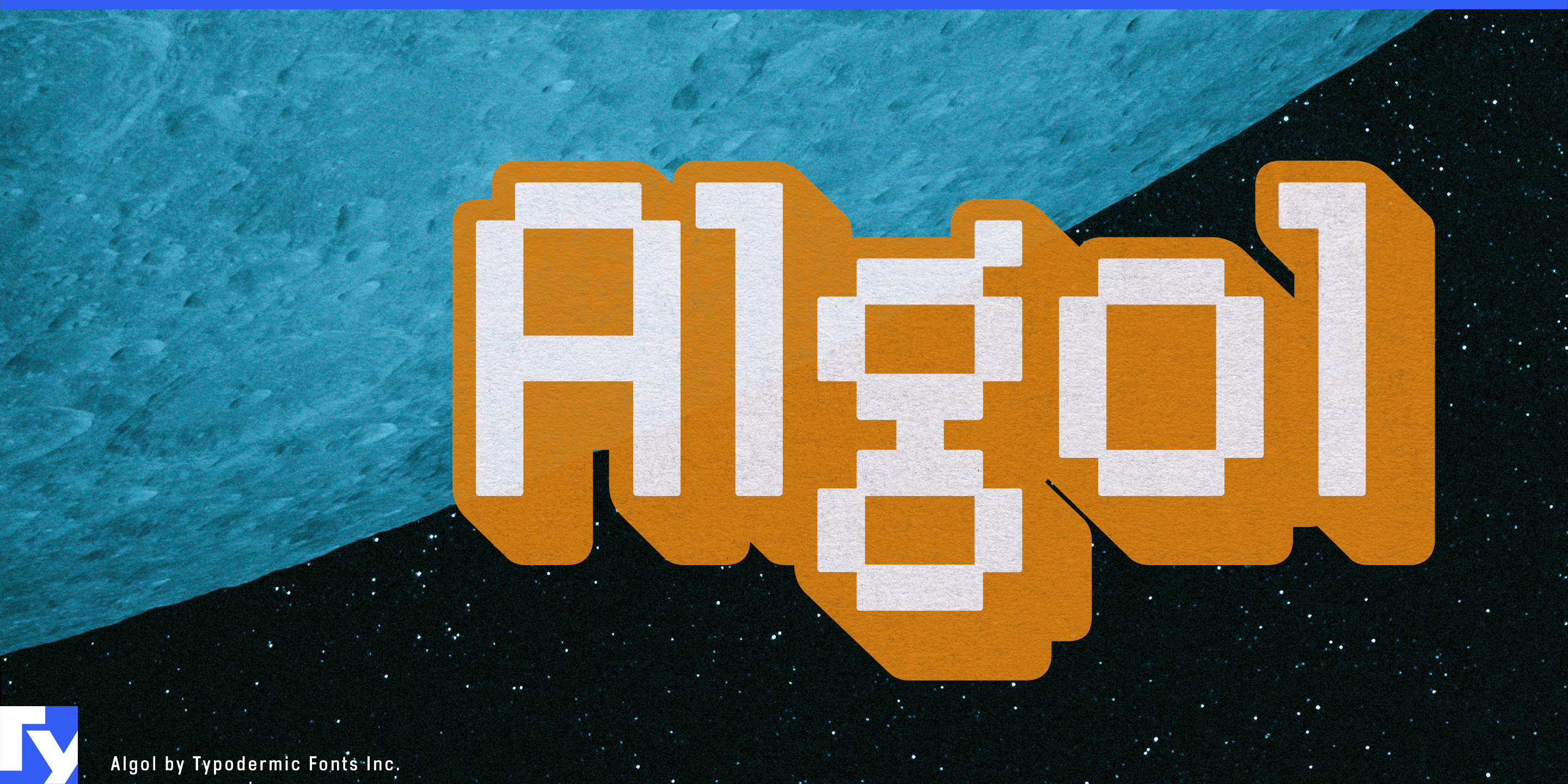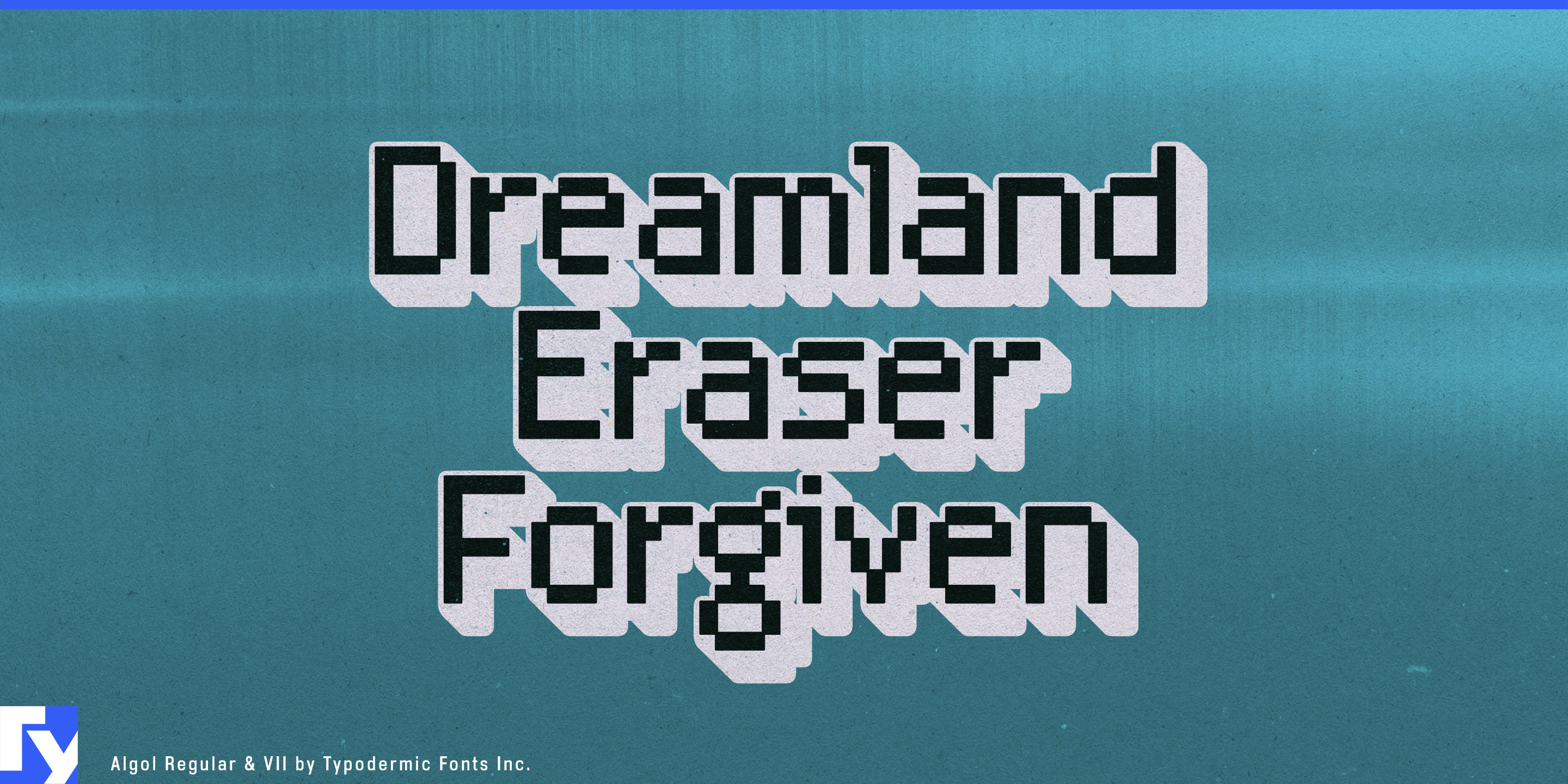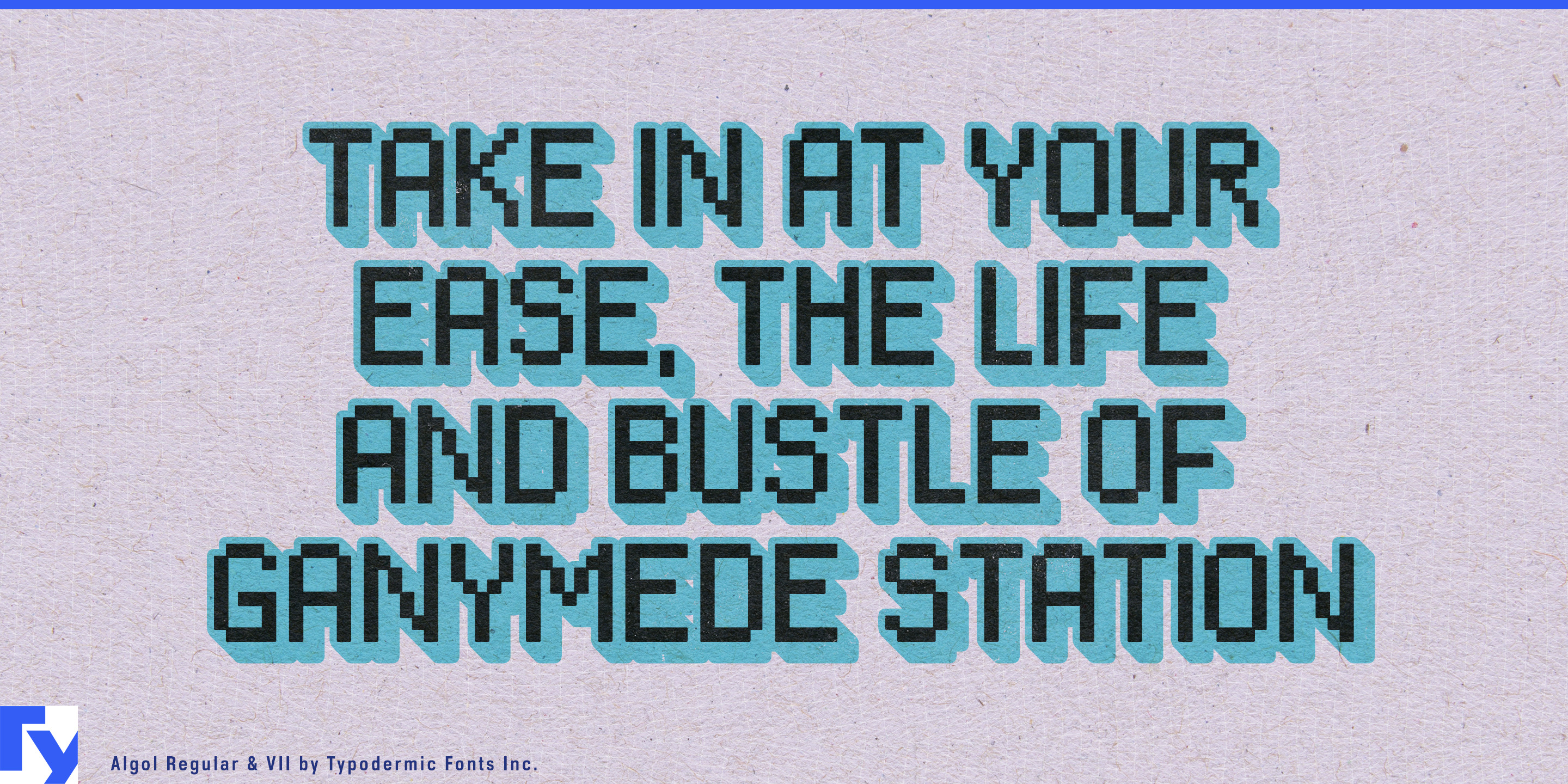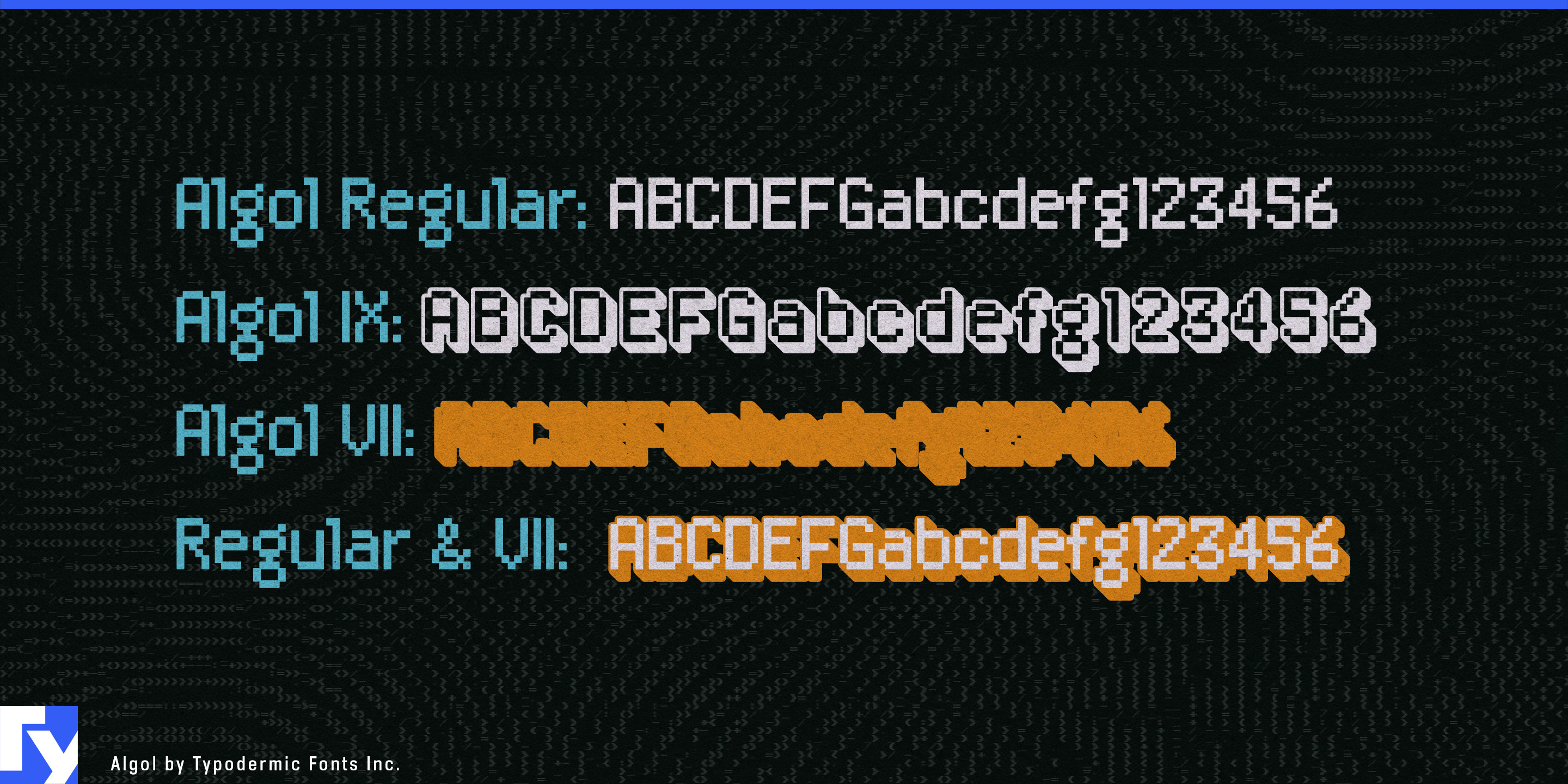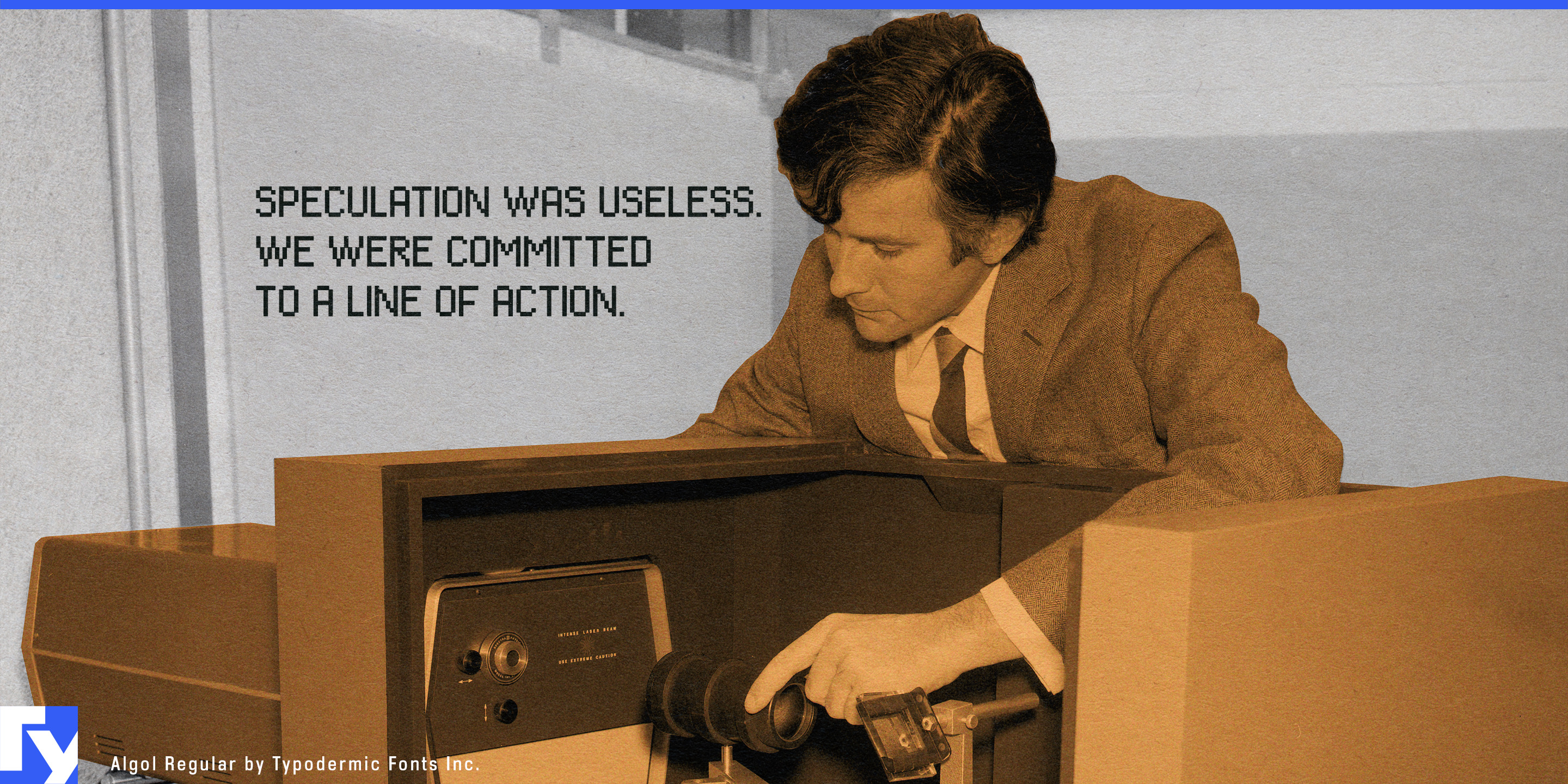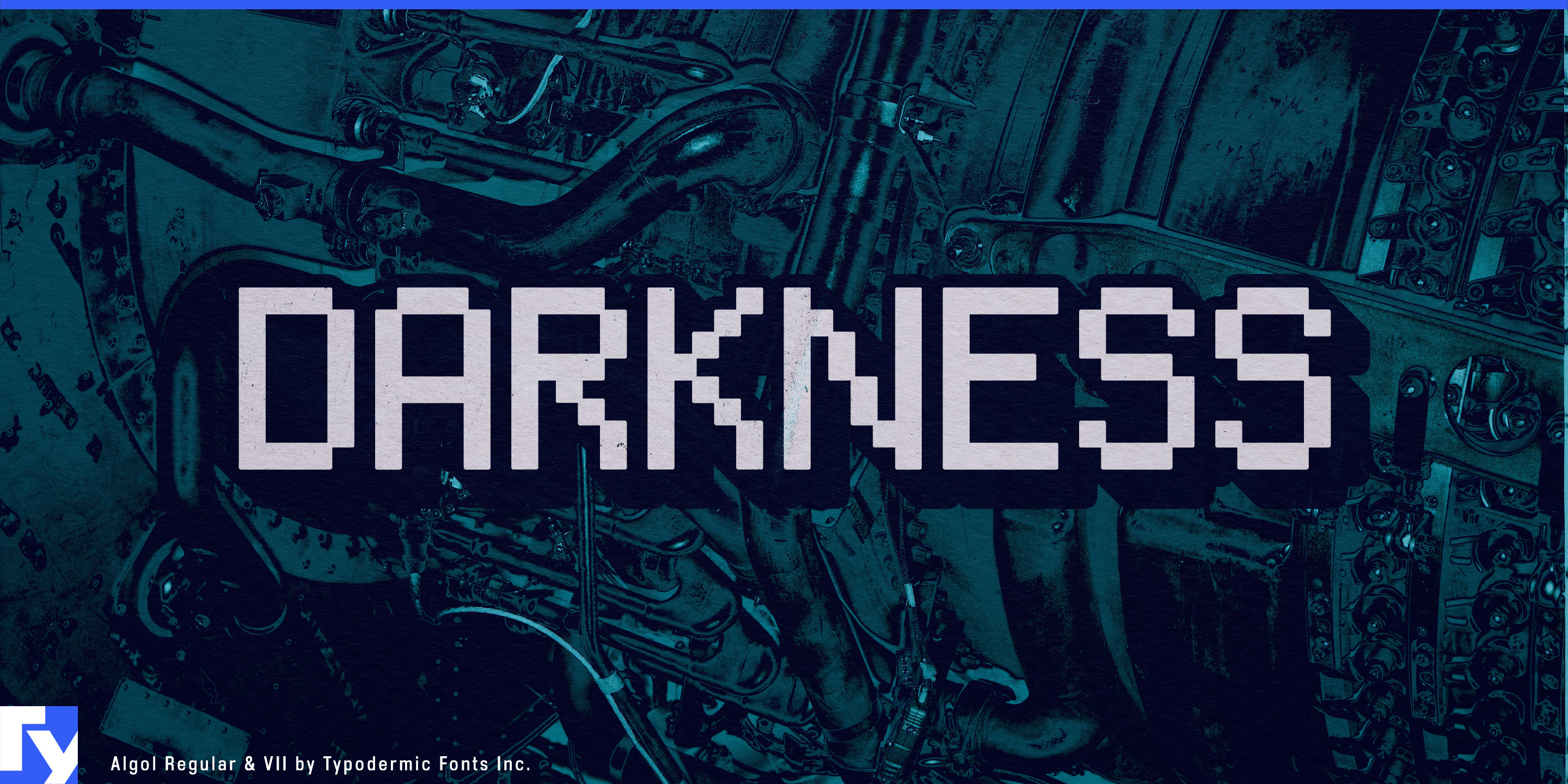
Algol
A pixel font can work perfectly on a screen and become surprisingly awkward once the letters have to be fabricated. Tiny projections, stair-stepped diagonals and narrow corner contacts can turn into delicate pieces of vinyl or weak-looking joins when enlarged into physical material.
Algol was built around that problem. Its letters retain an unmistakably grid-based pixel structure, but overlapping intersections and softened corners give the forms more substance when they are cut, routed, layered or extruded.
Vinyl signage is the natural starting point. Storefront graphics, vehicle decals, equipment markings, window lettering and wall installations can keep a blocky digital look without carrying every structural inconvenience of a literal bitmap alphabet into the cutting process.
CNC-routed acrylic, Plexiglas, plywood, MDF and metal signage extend the same idea into rigid fabrication. Arcade signs, machine-room plaques, dimensional retail graphics and exhibition lettering can preserve the visible pixel grid while looking designed for the material rather than mechanically enlarged from a screen.
3D printing and extrusion provide another useful branch. Wall letters, desk signs, machine badges and layered nameplates can turn Algol’s pixel modules into actual volume, while aligned variants allow offset vinyl, stacked acrylic, shadow layers and multicolor dimensional treatments.
Algol keeps the grid and solves a different problem: what happens when pixel lettering has to survive outside the screen. Cut vinyl, routed panels, acrylic, wood, metal and three-dimensional signs all give that construction a practical reason to exist.